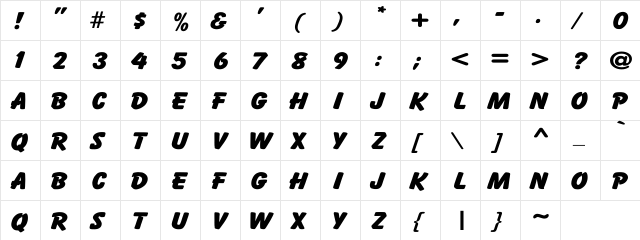
Haverford Thick Regular
Design Context for Haverford Thick Typeface
Haverford Thick is a composed and adaptable typeface that performs quietly and consistently across a wide range of design contexts.
Pro Tip: Use Haverford Thick in both headline and body roles to test its range before committing to a single application.